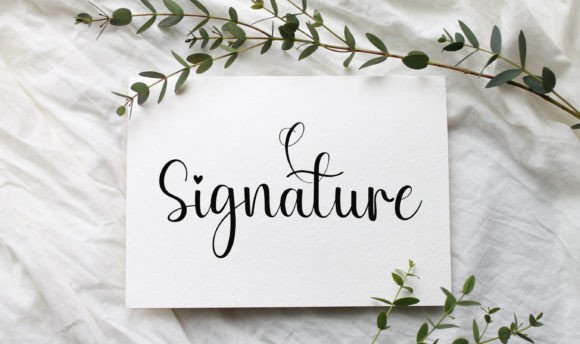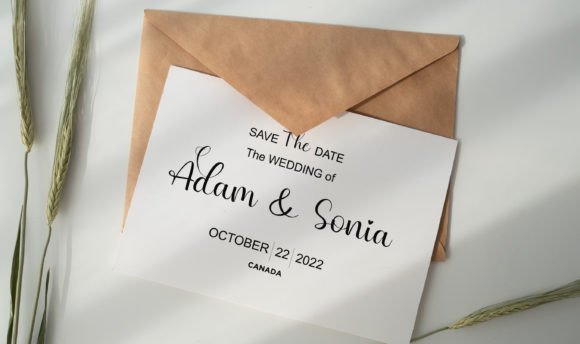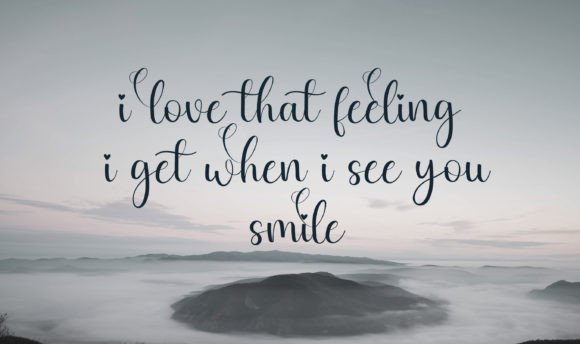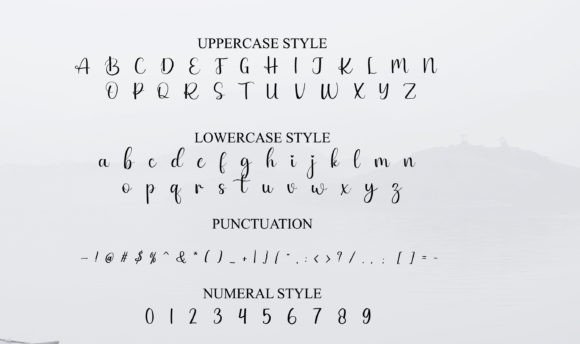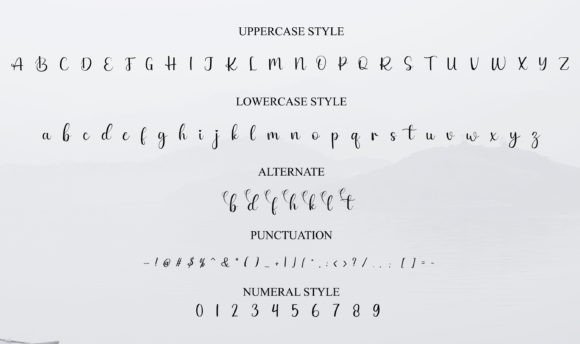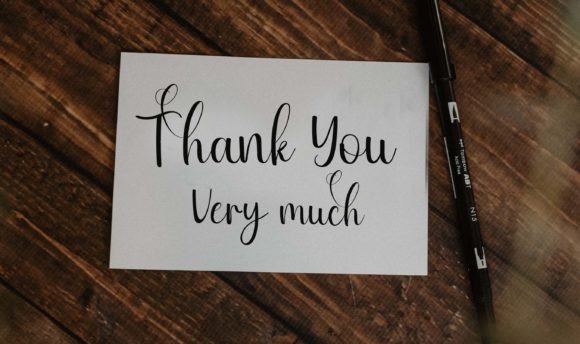
The Elegance of Barlie Font: A Designer’s New Best Friend
An Honest Review of Barlie Font
- ✨ Elegant and modern: Barlie Font strikes the perfect balance between classic handwriting and contemporary design.
- ✅ Flawless form: The font’s clean lines and precise curves make it a joy to use in any design project.
- 💫 Versatile: From logos and branding to wedding invitations and posters, Barlie Font is suitable for a wide range of creative projects.
While Barlie Font is an excellent choice for many design projects, there are a few things to keep in mind: 🤔
- ⚠️ Limited use in body text: Due to its elegant and cursive nature, Barlie Font may not be the best choice for long blocks of body text.
- ⚠️ Requires attention to spacing: As with any script font, it’s essential to pay attention to spacing and kerning to ensure the text looks its best.
The Story Behind Barlie Font
Barlie Font was designed with the goal of creating a beautiful, elegant script font that would be suitable for a wide range of design projects. The designer drew inspiration from classic handwriting and modern typography to create a font that is both timeless and contemporary.
Q: What type of projects is Barlie Font best suited for?
A: Barlie Font is suitable for a wide range of design projects, including logos, branding, wedding invitations, posters, and more.
Q: Is Barlie Font easy to read?
A: Barlie Font is designed to be elegant and legible, making it easy to read in most contexts.